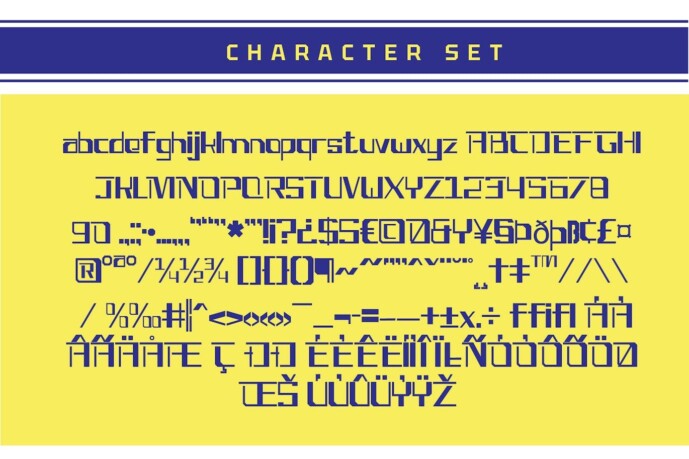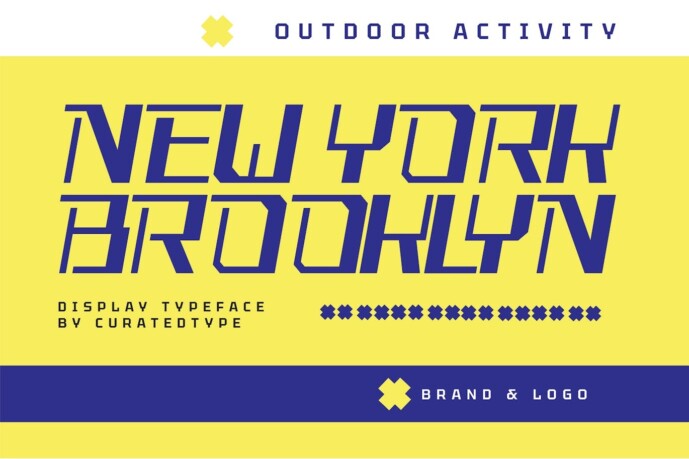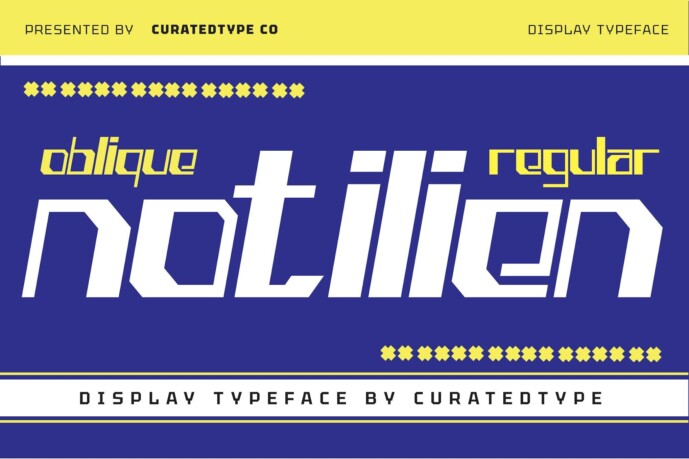
Notilien Font
Notilien Font – Futuristic Display Font Font served as inspiration. The sans serif Notilien font is narrow and tall. If you want your creative ideas to stand out, try adding it to your list of possibilities; it works with a wide variety of tasks.
Notilien is a great choice for any creative activity, retro or vintage design, lifestyle design such as logos, headline, cover, branding, display, business card, magazine, poster, film/movie and more. Now you are using Maderon to enhance your design or branding